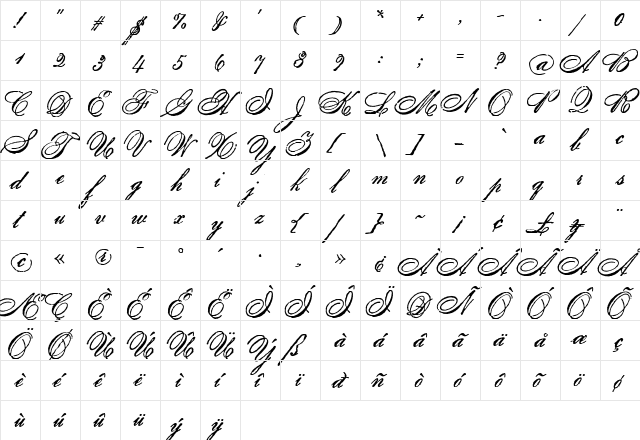
Gf Script No 4 Regular
| Foundry | Gigofonts |
| Designer | Gigofonts |
Design Context for Gf Script No 4 Typeface
Gf Script No 4 flows with the natural rhythm of handwritten lettering, making it ideal for designs that call for warmth and personal expression.
Font Pairing: Combine Gf Script No 4 with a simple geometric sans for maximum contrast — the tension between flowing curves and clean structure is a classic typographic pairing.